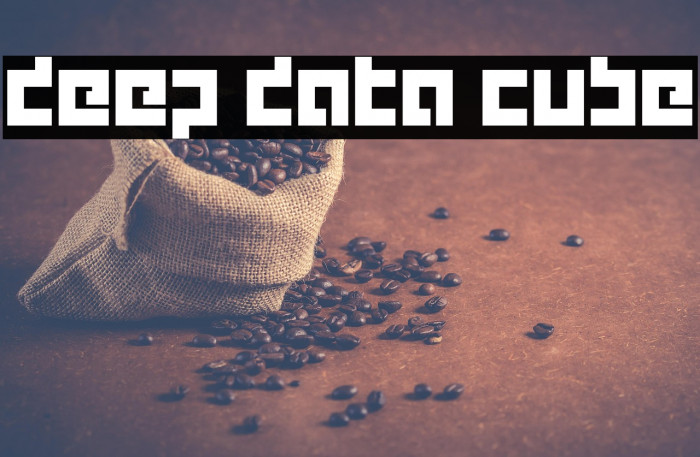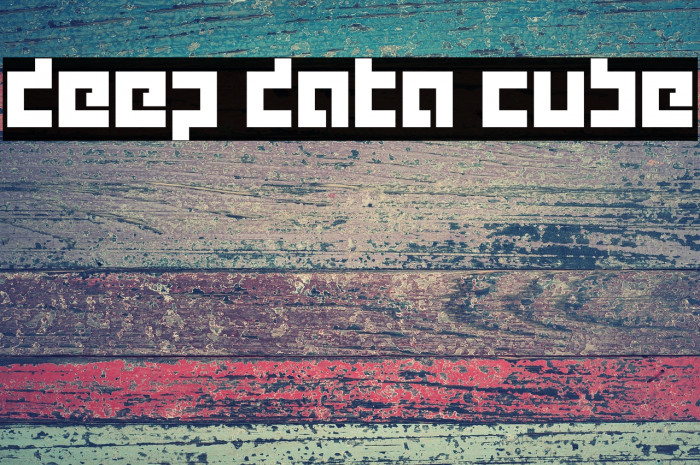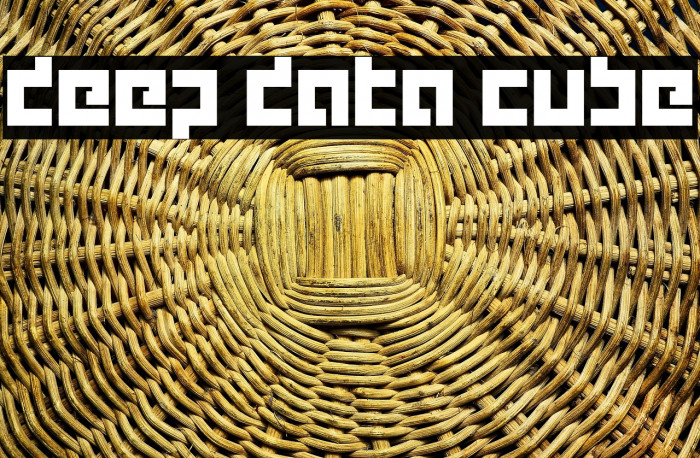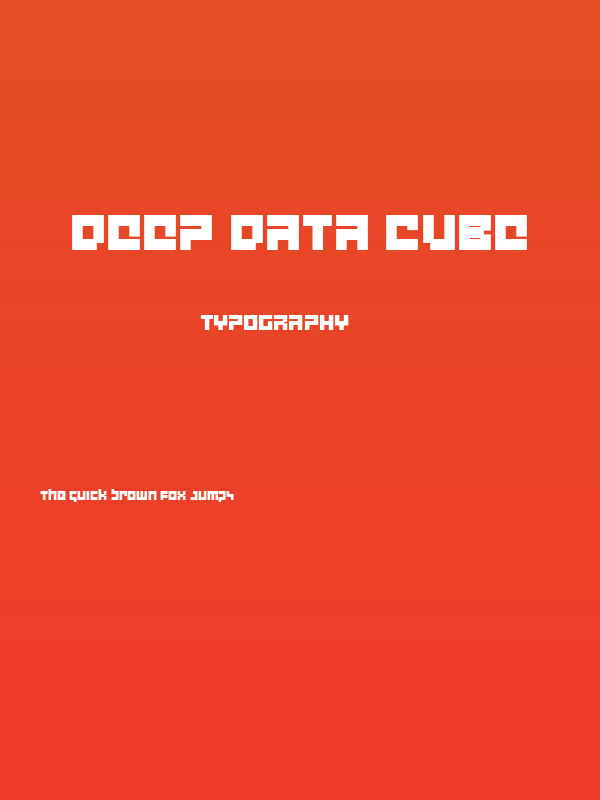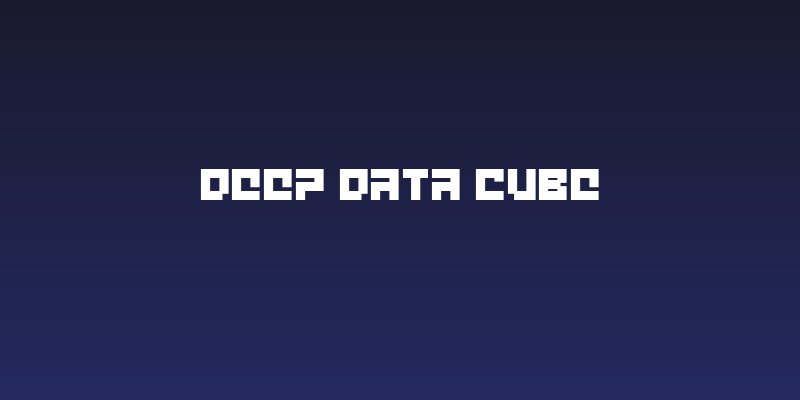
deep data cube Font
deep data cube Description
This font features a bold, blocky design with a distinctly digital and futuristic aesthetic. The characters are constructed with thick, uniform strokes, creating a strong visual impact. The geometric shapes and sharp angles give it a pixelated appearance, reminiscent of early digital displays or retro video games. The uppercase and lowercase letters maintain a consistent style, with minimal variation in stroke width, emphasizing a monospaced feel. Numbers and special characters are equally bold, ensuring readability and uniformity across all glyphs. The overall design is highly stylized, making it suitable for projects that require a modern, tech-inspired look.
| Proposed Projects | Ideal for video game graphics, tech company branding, digital art projects, and futuristic-themed posters. |